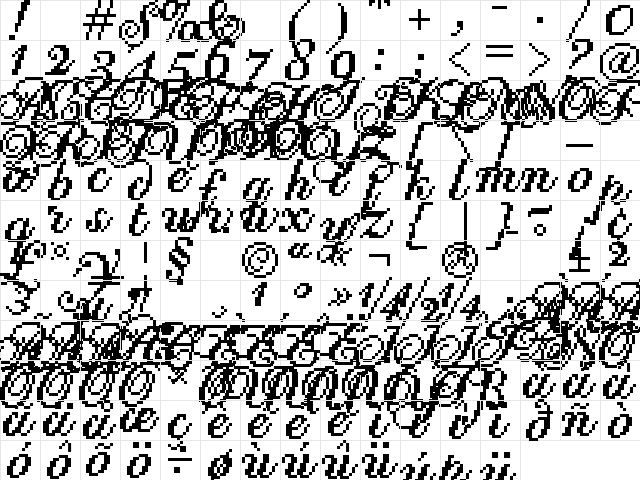
PF Pixelscript Pro Regular
Design Context for PF Pixelscript Pro Typeface
PF Pixelscript Pro is rooted in pixel-grid construction, making it a natural fit for game UI, retro computing aesthetics, and digital nostalgia projects.
Well-suited to indie game interfaces, retro computing aesthetics, and pixel art-adjacent design work.
Pro Tip: Use PF Pixelscript Pro at sizes that align with its pixel grid for the sharpest rendering — scaling to non-integer multiples can introduce unwanted blur.